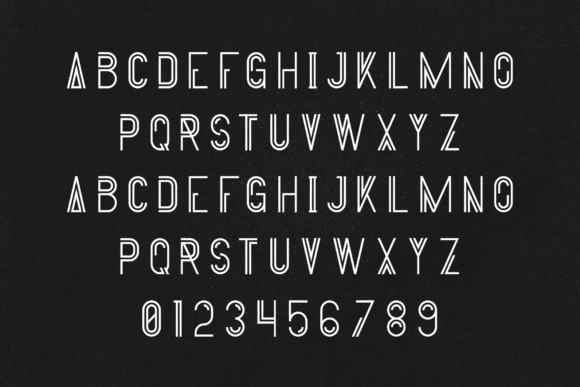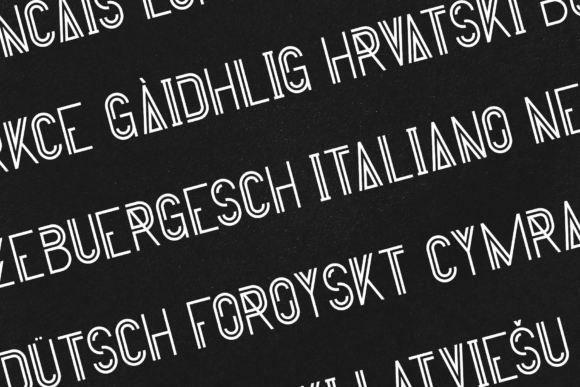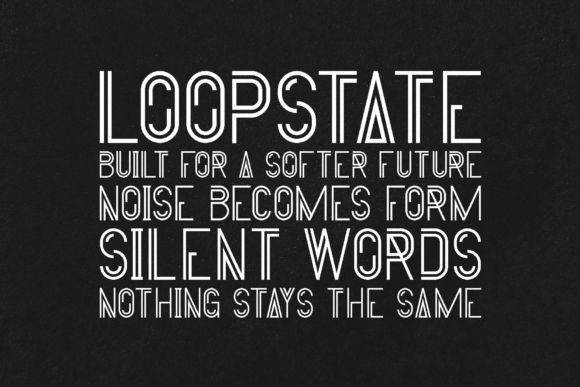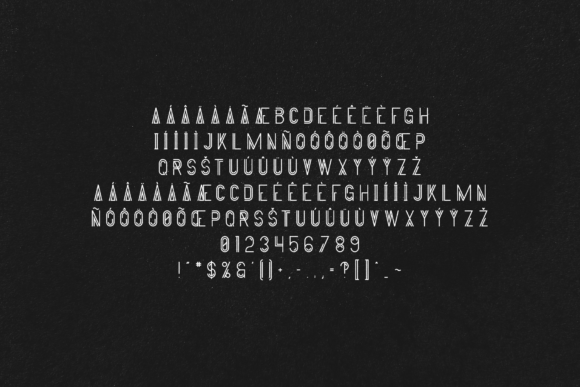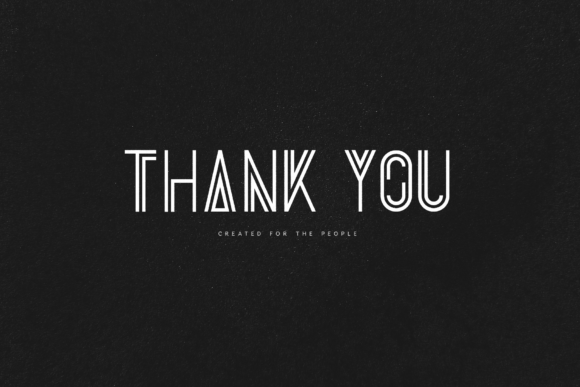
Bock Font: Elevate Your Design with a Bold, Modern Outline Display Font
In the realm of typography, a font can make or break the visual impact of a design. For designers and crafters seeking a bold, modern, and confident aesthetic, the Bock font is an exceptional choice. This striking outline display font is engineered to deliver a strong visual punch, making it perfect for a wide range of applications, from posters and logos to packaging and editorial design.
Clean Geometric Forms and Consistent Double-Line Strokes
The Bock font is built on clean geometric forms and consistent double-line strokes, which lend it a futuristic and precise appearance. This design approach ensures that the font exudes confidence and sophistication, making it an excellent fit for contemporary branding. The clean lines and geometric shapes also contribute to the font’s versatility, allowing it to seamlessly integrate into various design contexts.
Perfect for Striking Typography with a Modern Edge
Bock balances precision and personality, making it an ideal choice for designers looking to create striking typography with a modern edge. The font’s outlined construction ensures high contrast on dark or textured backgrounds, while its legibility and distinctiveness make it perfect for headlines, titles, and hero sections. Whether you’re working on a poster, logo, or album cover, Bock is sure to make a lasting impression.
Ideal Applications for Bock Font
The Bock typeface is particularly well-suited for projects that require a bold, attention-grabbing aesthetic. Some of the ideal applications for Bock include:
• E-sports branding: Bock’s futuristic and confident appearance makes it a natural fit for e-sports logos, jerseys, and marketing materials.
• Tech logos: The font’s clean lines and geometric shapes make it an excellent choice for tech companies looking to establish a modern and innovative brand image.
• Modern architectural projects: Bock’s bold and precise appearance makes it perfect for architectural firms looking to create a strong visual identity.
• Cyberpunk aesthetic: Bock’s futuristic and edgy appearance makes it an excellent choice for designers looking to create a cyberpunk-inspired design.
• Luxury streetwear labels: The font’s bold and confident appearance makes it perfect for luxury streetwear labels looking to create a strong brand image.
Best Practices for Using Bock Font
To get the most out of the Bock font, it’s essential to use it effectively. Here are some best practices to keep in mind:
• Use Bock at larger sizes: Due to its complex internal lines, Bock works best at larger sizes, making it perfect for titles and hero sections.
• Pair with a simple sans serif: To enhance the design, pair Bock with a very simple, wide-spaced minimalist sans serif for secondary text. This will create a harmonious contrast between the bold, outlined font and the clean, minimalist text.
In conclusion, the Bock font is a bold, modern outline display font that is perfect for designers and crafters looking to create striking typography with a modern edge. Its clean geometric forms, consistent double-line strokes, and outlined construction make it an excellent choice for a wide range of applications, from posters and logos to packaging and editorial design. By following best practices and using Bock effectively, designers can elevate their designs and create a lasting impression.
Whether you’re working on a cyberpunk-inspired design, luxury streetwear label, or modern architectural project, Bock is an excellent choice. Its unique blend of precision and personality makes it a versatile font that can be used in various design contexts. So why settle for a ordinary font when you can make a bold statement with Bock?